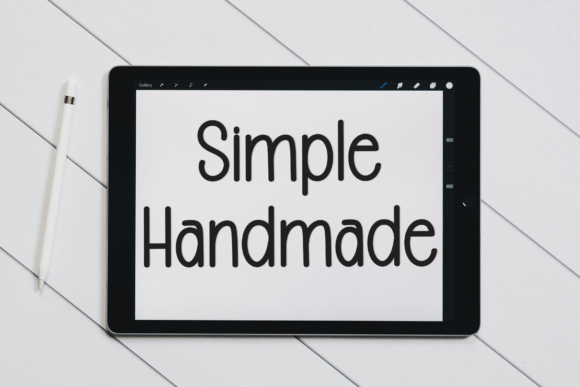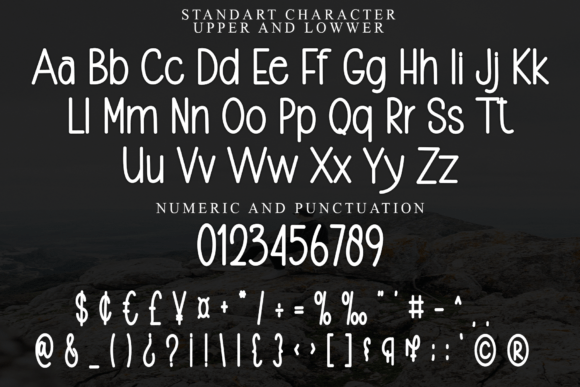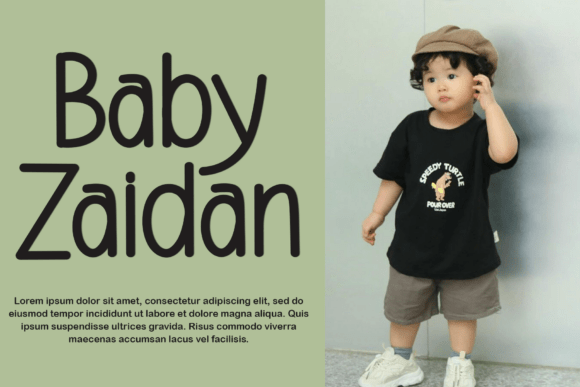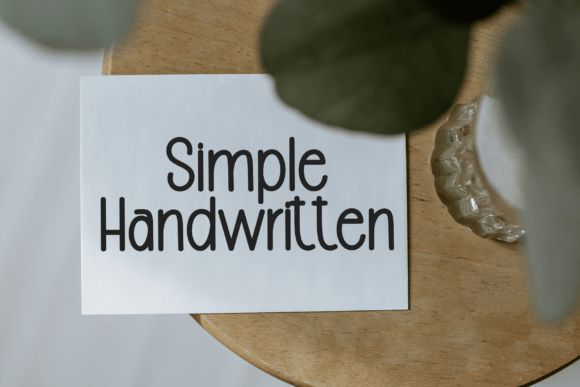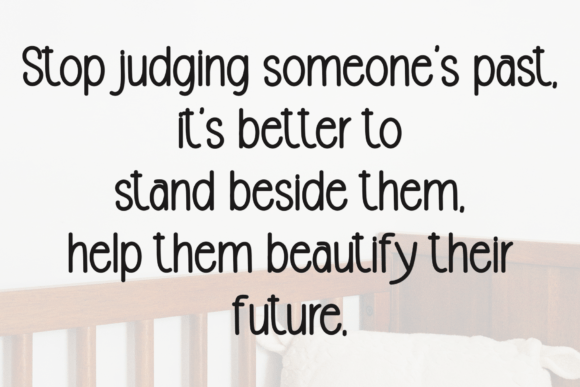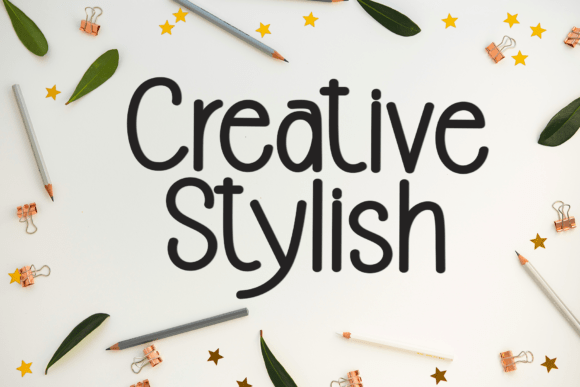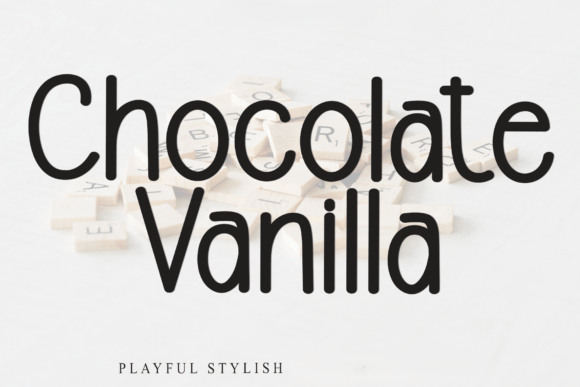
Introducing Chocolate Vanilla Font: The Sweetest Addition to Your Design Toolbox
Are you on the hunt for a font that embodies the perfect blend of playfulness and simplicity? Look no further than the Chocolate Vanilla Font, a delightful sans serif font that is sure to add a touch of whimsy to your designs. With its smooth curves and light-hearted style, this charming font is ideal for a wide range of projects, from branding and packaging to kids’ products and cheerful messages.
The Personality of Chocolate Vanilla Font
Chocolate Vanilla Font boasts a playful personality that is impossible to ignore. Its clean and simple design makes it highly versatile, while its whimsical tone adds a friendly touch to any design. This font is perfect for designers and crafters who want to create a sense of fun and approachability in their work. Whether you’re designing a logo, creating a brand identity, or crafting a cheerful message, Chocolate Vanilla Font is the perfect choice.
Key Features of Chocolate Vanilla Font
So, what makes Chocolate Vanilla Font so special? Here are just a few of its key features:
- Smooth Curves: Chocolate Vanilla Font features smooth, flowing curves that give it a soft and approachable feel.
- Light-Hearted Style: This font has a light-hearted style that is perfect for creating cheerful and uplifting designs.
- Clean Design: Despite its playful personality, Chocolate Vanilla Font has a clean and simple design that makes it highly legible.
- Whimsical Tone: This font has a whimsical tone that adds a touch of magic to any design.
Use Cases for Chocolate Vanilla Font
So, what can you use Chocolate Vanilla Font for? The possibilities are endless! Here are just a few ideas to get you started:
- Branding: Use Chocolate Vanilla Font to create a brand identity that is friendly, approachable, and fun.
- Packaging: This font is perfect for packaging design, especially for kids’ products or food and beverage packaging.
- Kids’ Products: Chocolate Vanilla Font is a natural fit for kids’ products, such as toys, games, and educational materials.
- Cheerful Messages: Use this font to create cheerful messages, such as greeting cards, invitations, and social media posts.
Why Designers and Crafters Love Chocolate Vanilla Font
Designers and crafters love Chocolate Vanilla Font for many reasons. Here are just a few:
- Easy to Read: This font is highly legible, making it easy to read and understand.
- Versatile: Chocolate Vanilla Font can be used for a wide range of projects, from branding and packaging to kids’ products and cheerful messages.
- Playful: This font has a playful personality that adds a touch of whimsy to any design.
- High-Quality: Chocolate Vanilla Font is a high-quality font that is designed to deliver exceptional results.
In conclusion, Chocolate Vanilla Font is a sweet and simple sans serif font that is perfect for designers and crafters who want to add a touch of playfulness to their designs. With its smooth curves, light-hearted style, and whimsical tone, this font is ideal for a wide range of projects, from branding and packaging to kids’ products and cheerful messages. So why wait? Download Chocolate Vanilla Font today and start creating designs that are as sweet as they are simple!